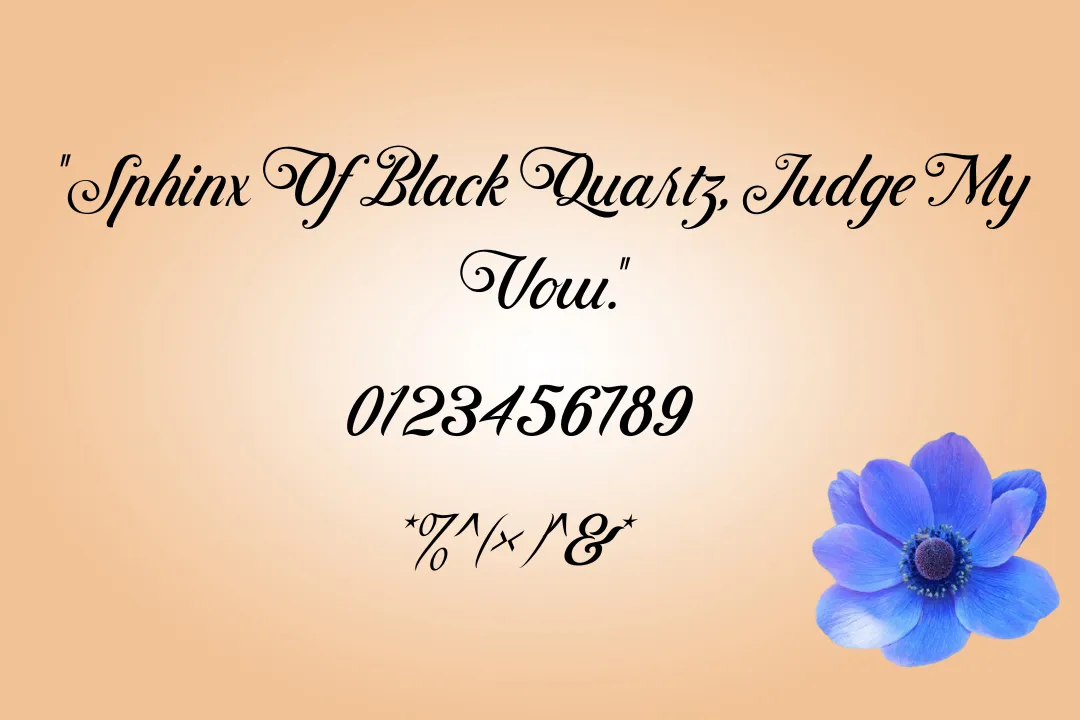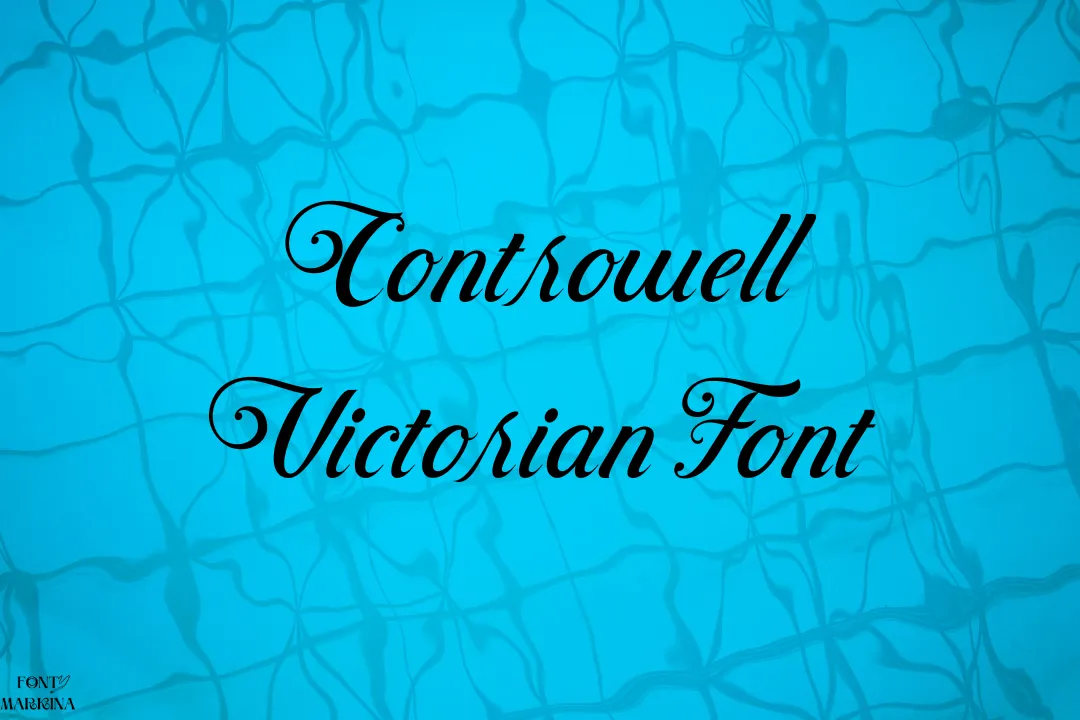
Controwell Victorian Font is a basic serif texture and it has fancy characters that are effective for calligraphy designs. Alit Design is the main and original designer of this family. This family contains a bunch of fancy characters and styles.
A lot of similar fonts to this family are obtainable on google but it is available on our website. Because of its open constitution, and a colossal x-top this family is famous all across the globe. Cochin font is similar to this family because of its gorgeous look.
Uses of Controwell Victorian Font
All expert designers can use this cozy font for beer design, packaging design, cards, book covers, and much more. It is used in plenty of places but especially for official tasks. This font family is the best choice for Youtubers and data entry operators. In Adobe and Canva programs you will notice the most satisfactory results of this typography.
For multiple poster designs, thumbnails, editing videos, as well as photos this typeface is perfect and also provides fantastic results. For the heading of the website and titles, you can choose this typography without any worry. This adorable font is suitable for making a high-quality logo design for famous organizations, brands, as well as magazines.
Font Information
| Name | Controwell Victorian Font |
| Designer | Alit Design |
| Type | Serif |
What is the type of Controwell Victorian Font?
A serif texture and it has fancy characters that are effective for calligraphy designs.
Where we can use Controwell Victorian Font?
You can use this typography for a lot of designs according to your desire like covers of books, envelopes, emblems, and others.